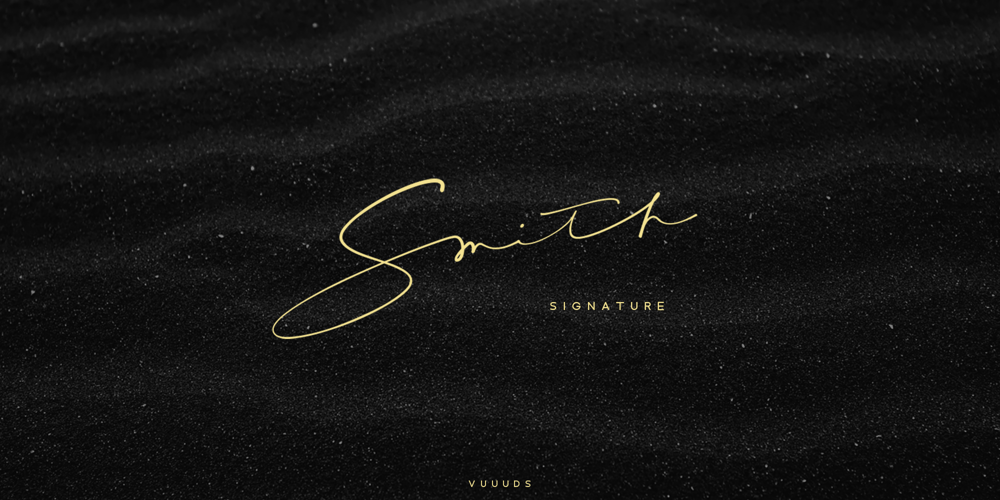
Smith Signature Font Family was designed by Agung Syaifudin and published by vuuuds. Smith Signature contains 1 styles and family package options. Introducing Smith Signature Font!Smith Signature is modern signature script font, every single letters have been uniquely crafted.This font including beautiful alternate glyph. You can access the alternate glyph via Font Book (Mac user) or Windows Character Map (Windows user), I’ve been put the link tutorial inside the zip file.Foreign languages support: ÀÁÂÃÄÅÆÇÈÉÊËÌÍÎÏÐÑÒÓÔÕÖØÙÚÛÜÝàáâãäåæçèéêëìíîïðñòóôõöøùúûüýÿ߀£¥ŒŠŸ¢œšž©®